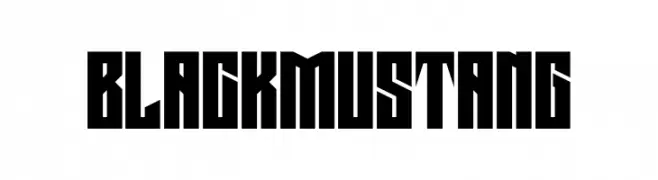
A modern, light, italic sans-serif font with sleek and elegant design.
A bold, modern sans-serif font with clean, geometric lines.
A modern, italic font with a clean and dynamic style.
A modern, thin sans-serif font with a clean and minimalist design.
A sleek, thin, italicized font with a modern and fluid design.
A bold, playful handwritten font with rounded characters.
A bold, hand-drawn font with a distressed texture and playful style.
A flowing, cursive font with elegant, sweeping curves and a sophisticated style.
A playful, handwritten script font with flowing, interconnected strokes.
A playful and elegant script font with fluid, connected letterforms.
A dynamic, flowing script font with elegant, interconnected characters.
A playful and whimsical font with decorative uppercase and rounded lowercase letters.
A fluid, elegant handwritten font with a casual yet sophisticated style.
A flowing, cursive script font with a handwritten style.
A bold, high-contrast serif font with strong, pronounced serifs.
A bold, italic serif font with dynamic slanted characters.
A flowing, cursive script font with elegant, interconnected characters.
A dynamic and flowing script font with elegant cursive letterforms.
A fluid and graceful script font with a handwritten signature style.
A sophisticated script font with flowing, interconnected letters and elegant curves.
A flowing, cursive font with elegant, connected characters and artistic flourishes.
A bold, geometric font with a modern industrial style.
A bold, industrial stencil-style font with geometric precision.
A bold, expressive script font with high contrast and fluid connections.
A bold, expressive script font with elegant curves and dynamic flow.
An elegant, flowing script font with ornate uppercase and cohesive lowercase letters.
A dynamic and elegant script font with fluid, cursive letterforms.
An elegant, flowing script font with interconnected, cursive strokes.
A modern, geometric font with sharp angles and a minimalist style.
A flowing, elegant script font with smooth, rounded edges and consistent stroke width.